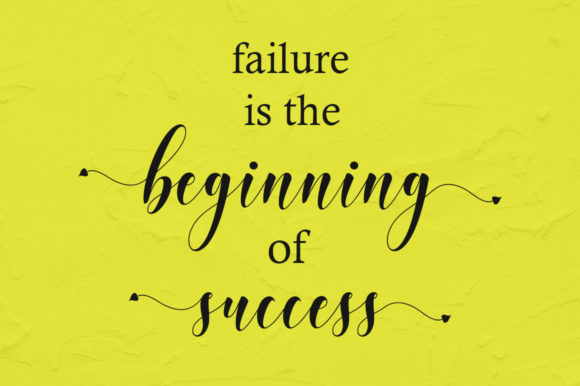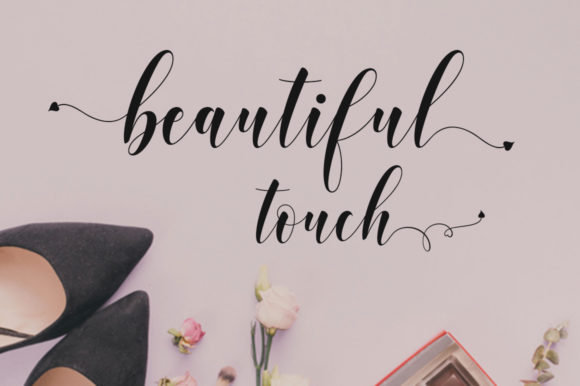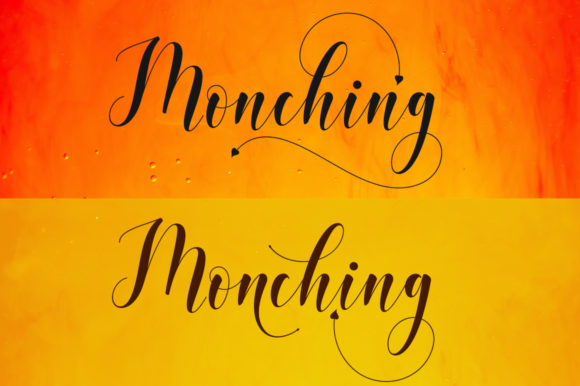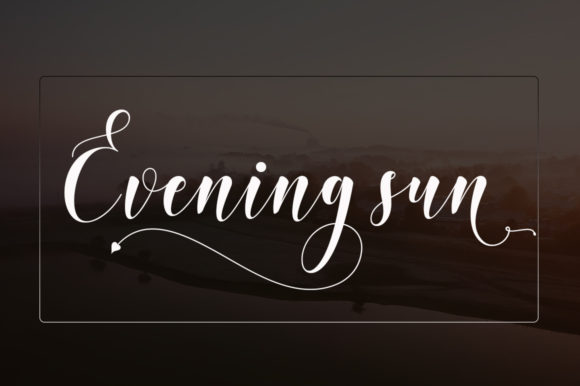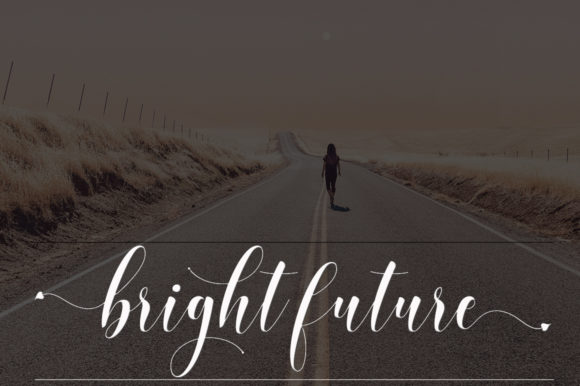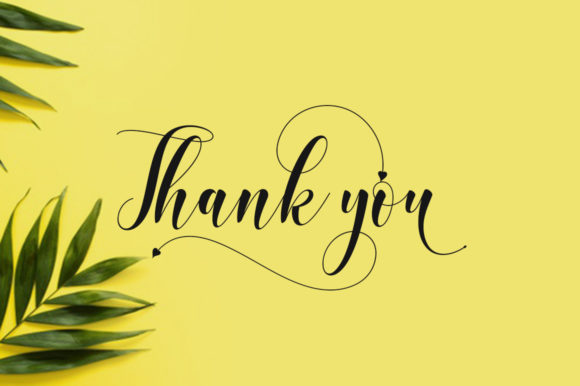
HomeScript FontsWellcome Font Script Fonts Wellcome Font FacebookXPinterestWhatsApp Wellcome Font Poster 2 Wellcome Font Poster 3 Wellcome Font Poster 4 Wellcome Font Poster 5 Wellcome Font Poster 6 Wellcome Font Poster 7 About Wellcome Font Wellcome is a lovely and modern script font with a romantic style. Get inspired by its charming appearance! DOWNLOAD ON CREATIVE FABRICAThis font is sold and delivered by Creative Fabrica. Font Canyon may earn a commission if you buy through this link. People also explored Regals Font Crazy Rich Font Christine Black Friday Winter Hat Font Ballantik Font Starlight Font Kenir Font Merry Christmas Font 353 0 TagsWellcome Font Previous articleMonday FontNext articleSunnylise Font LEAVE A REPLY Cancel reply Comment: Please enter your comment! Name:* Please enter your name here Email:* You have entered an incorrect email address! Please enter your email address here Website: Save my name, email, and website in this browser for the next time I comment. Personal Use Free Budmo Personal Use Free Read more about this font Tahu Font Personal Use Free Read more about this font Houstonville Personal Use Free Read more about this font Bruttney Personal Use Free Read more about this font BLOG Top 10 Handwritten Fonts That Elevate Your Designs Top 10 Handwritten Fonts That Will Elevate Your Designs Handwritten fonts bring a warm, personal touch to every creative project. Whether you're designing logos, invitations,... Transform Your Website: Elevate Your Typography with 7 Best Web Font Generators Where to Buy American Fonts Online in 2024 Fonts That Capture the Spirit of New York City